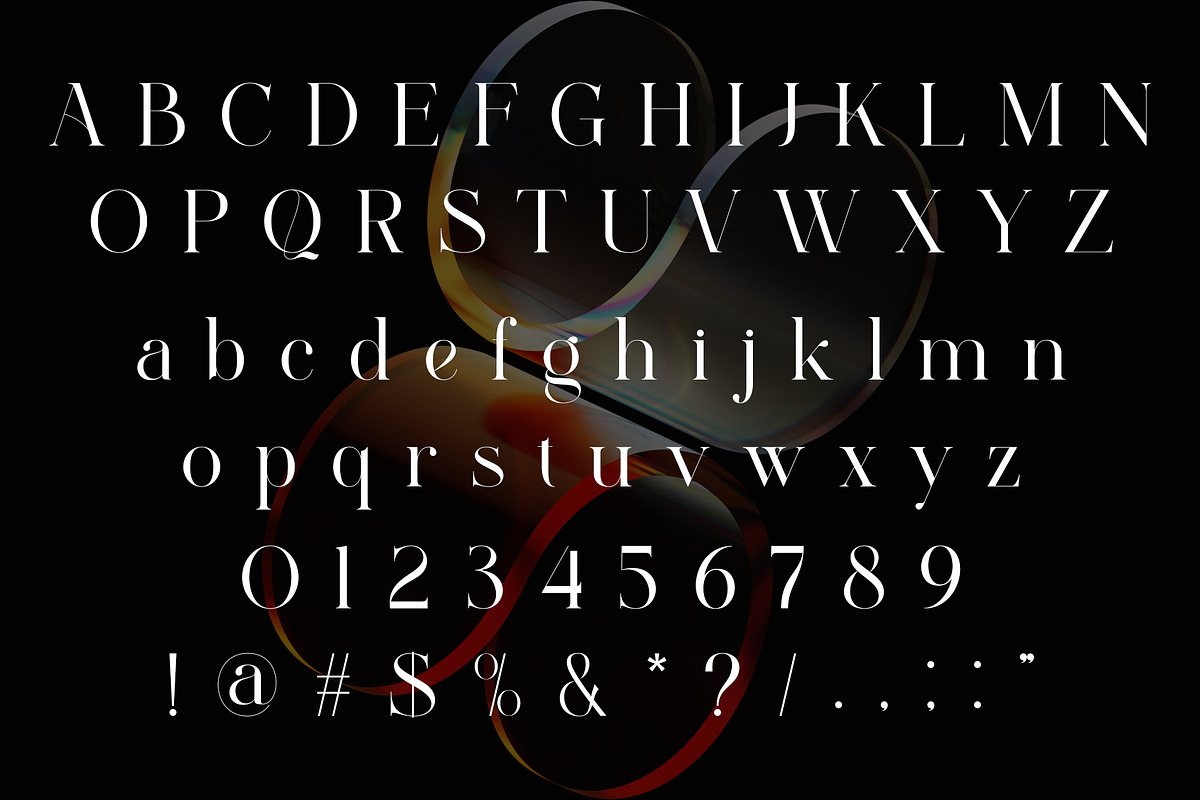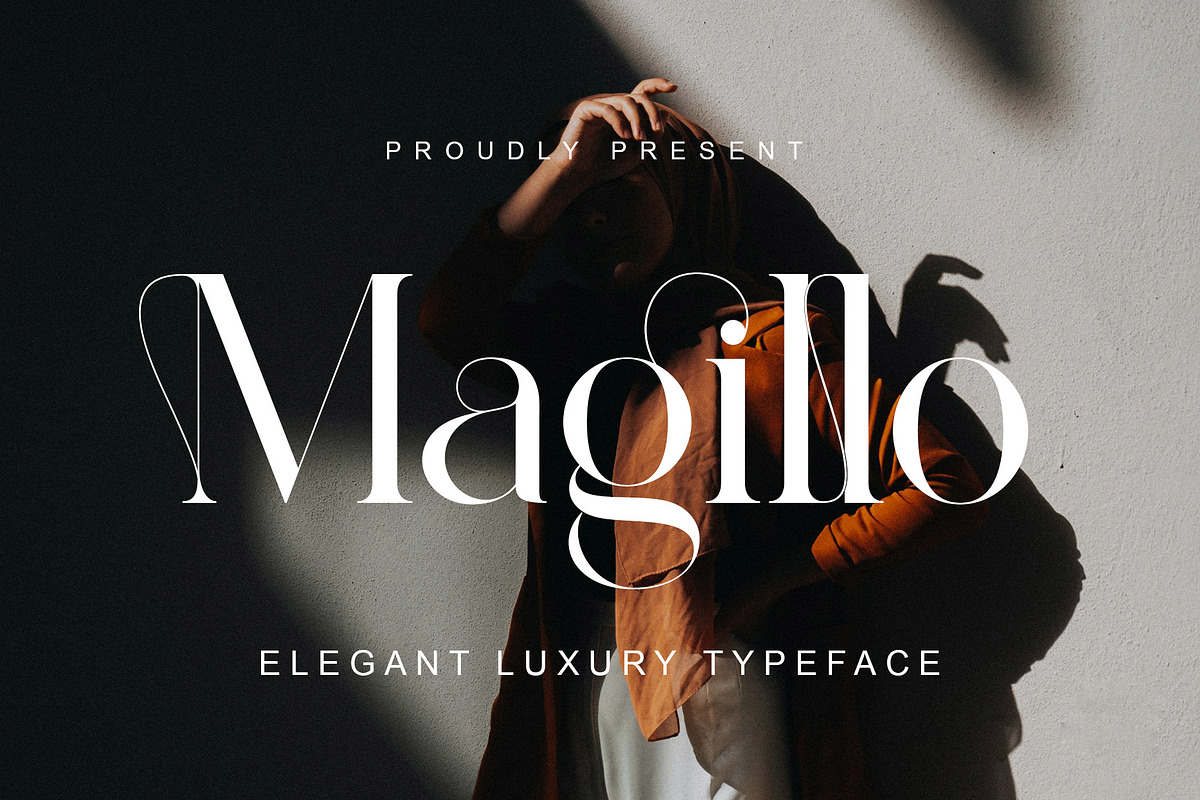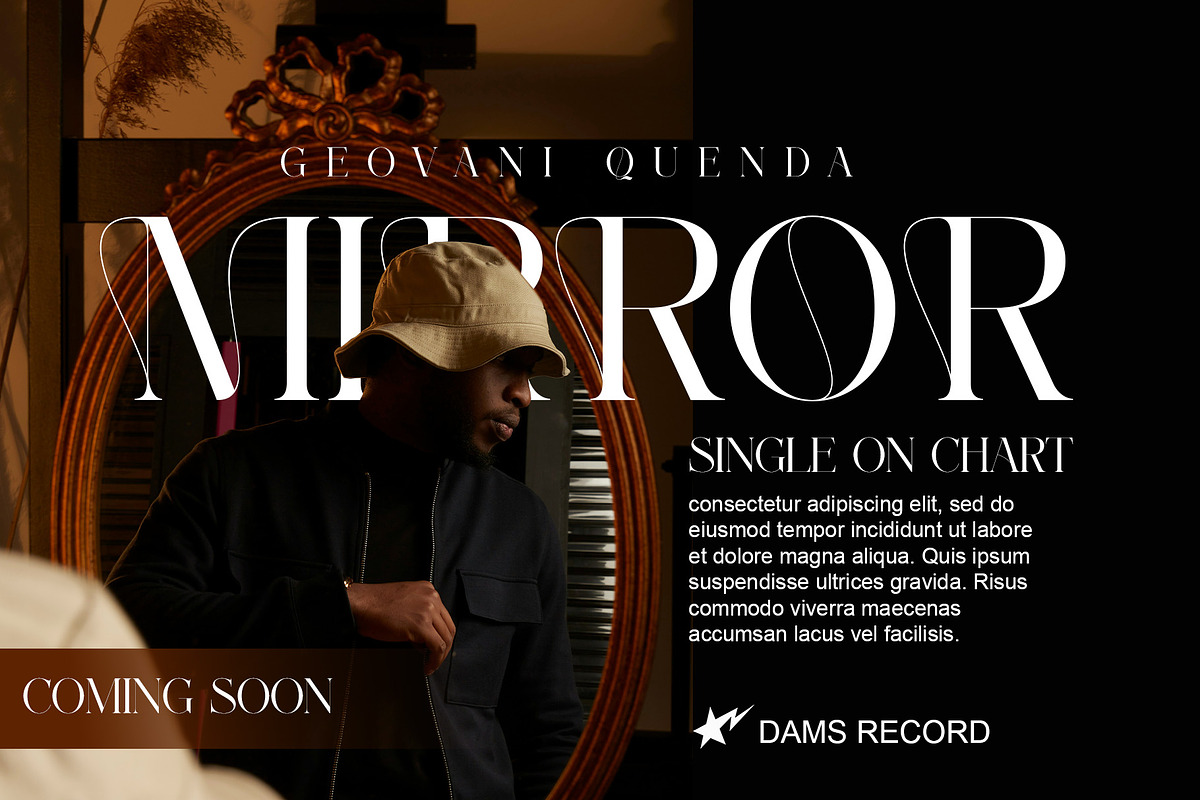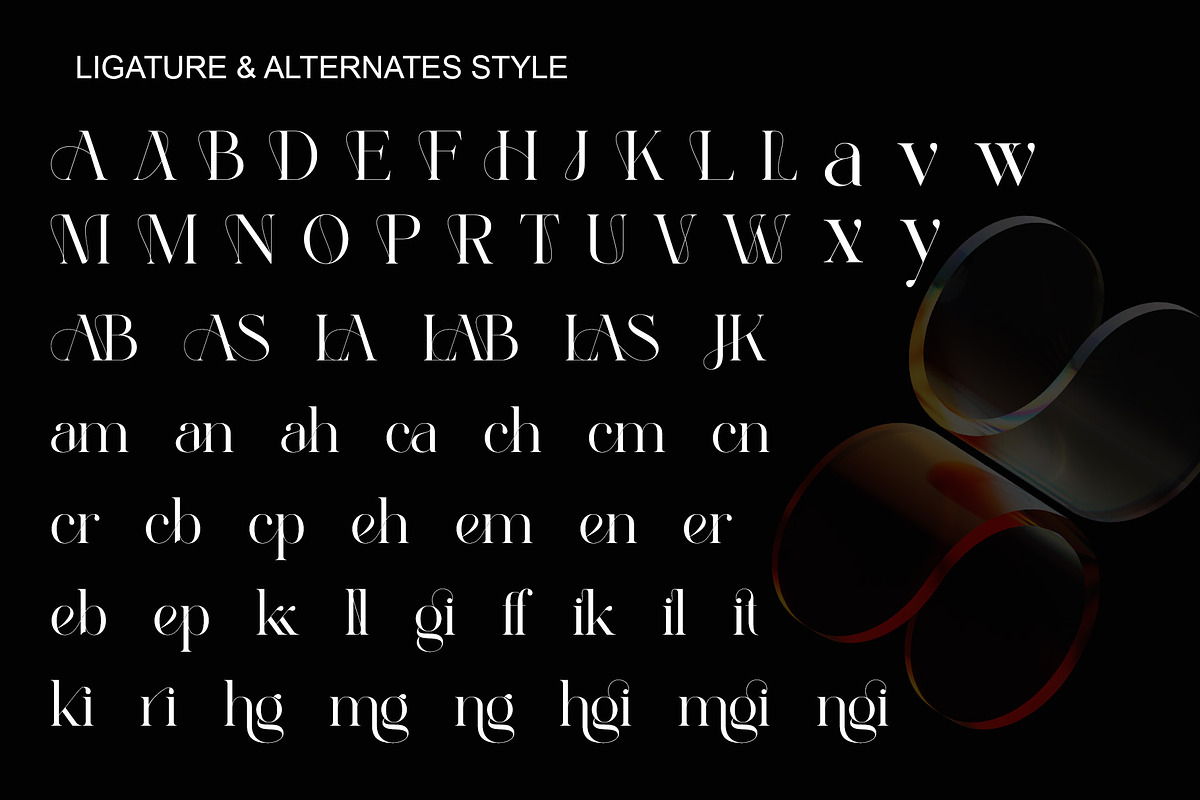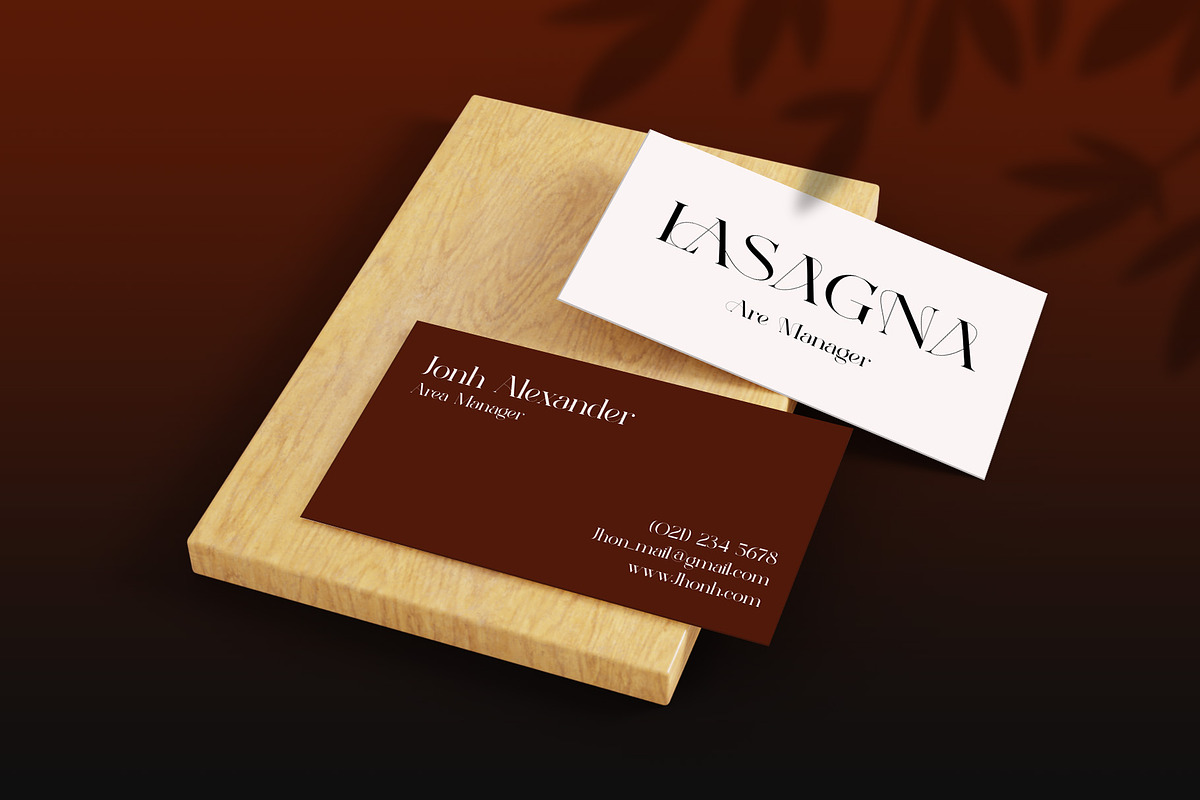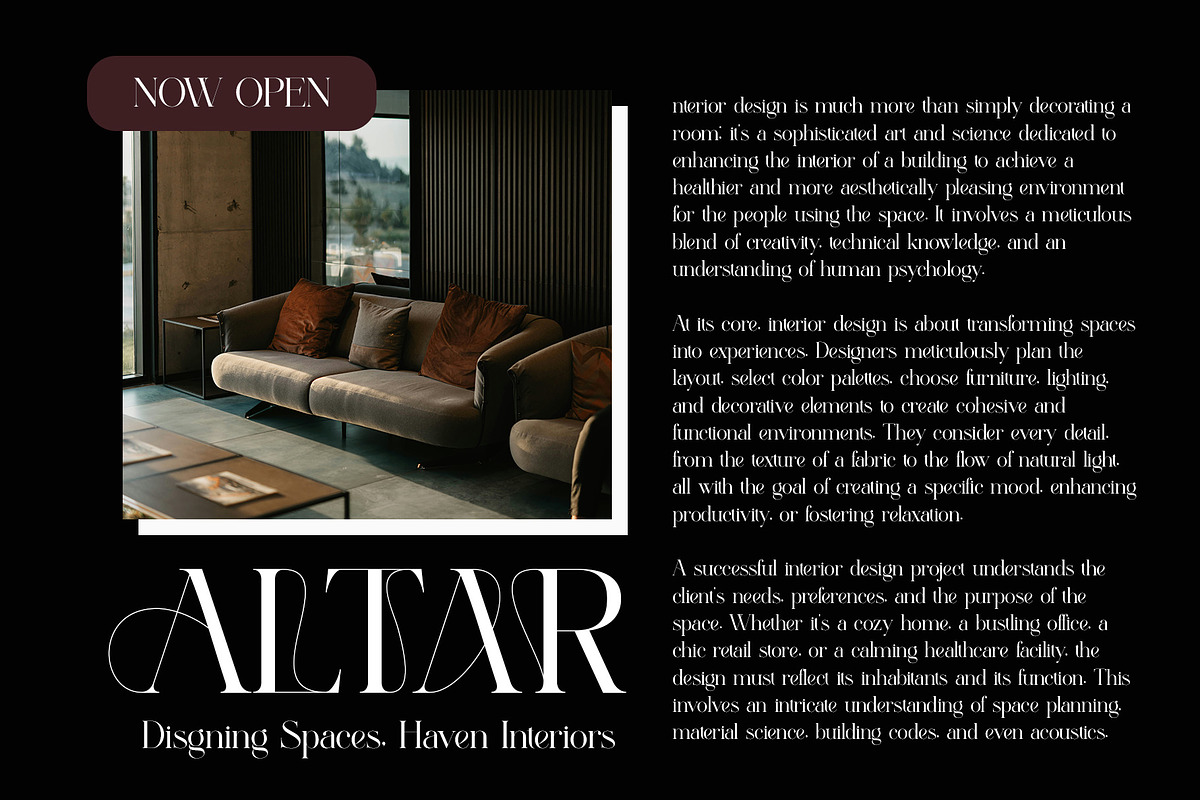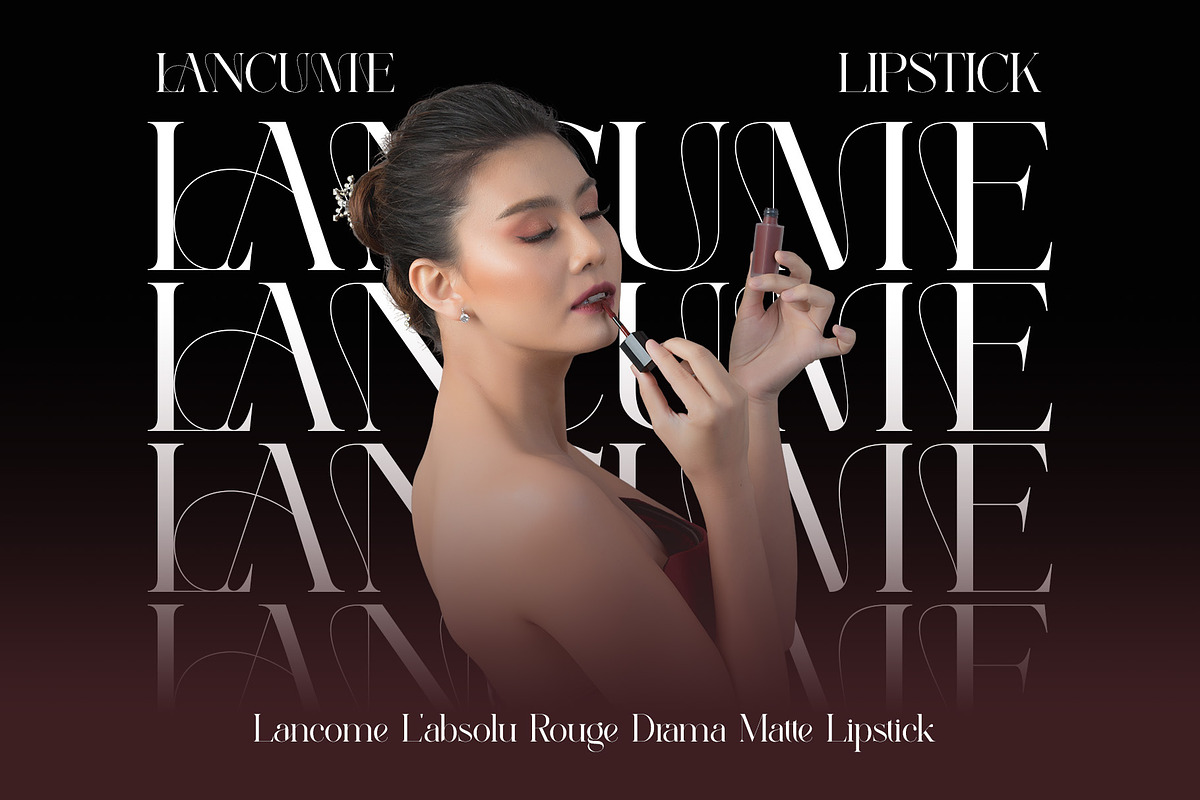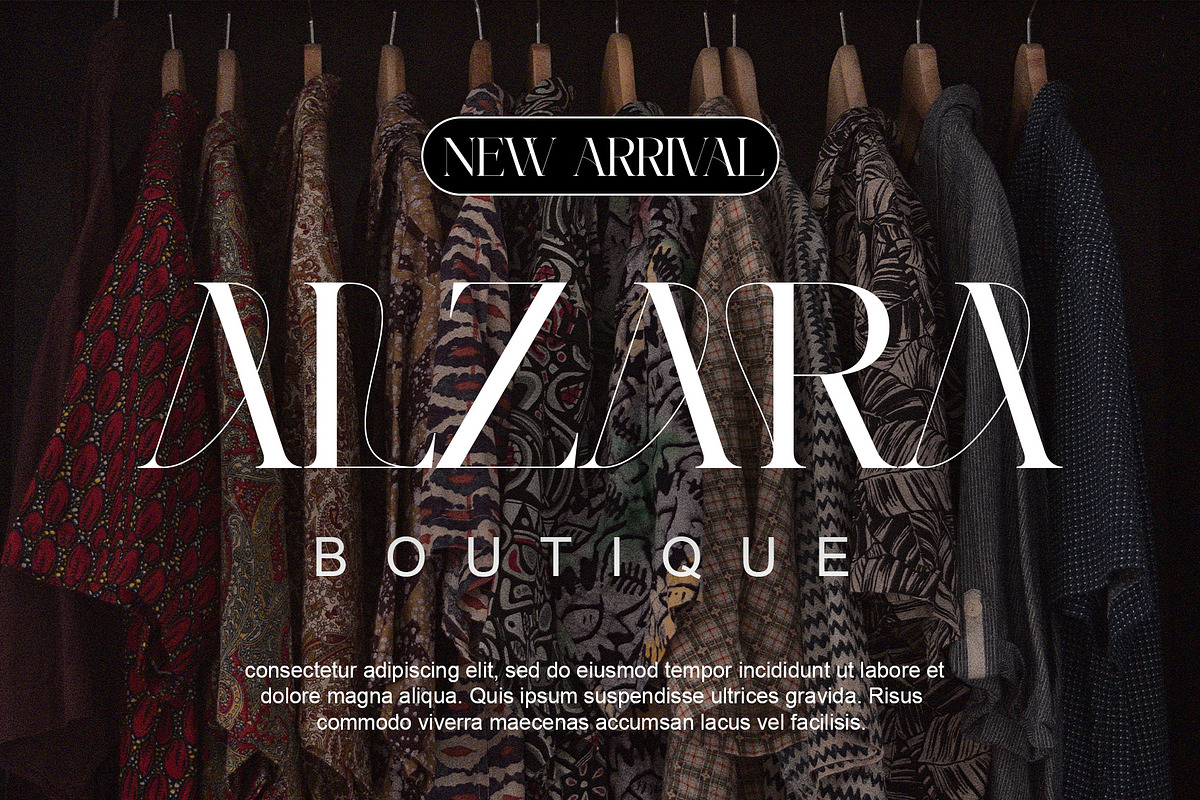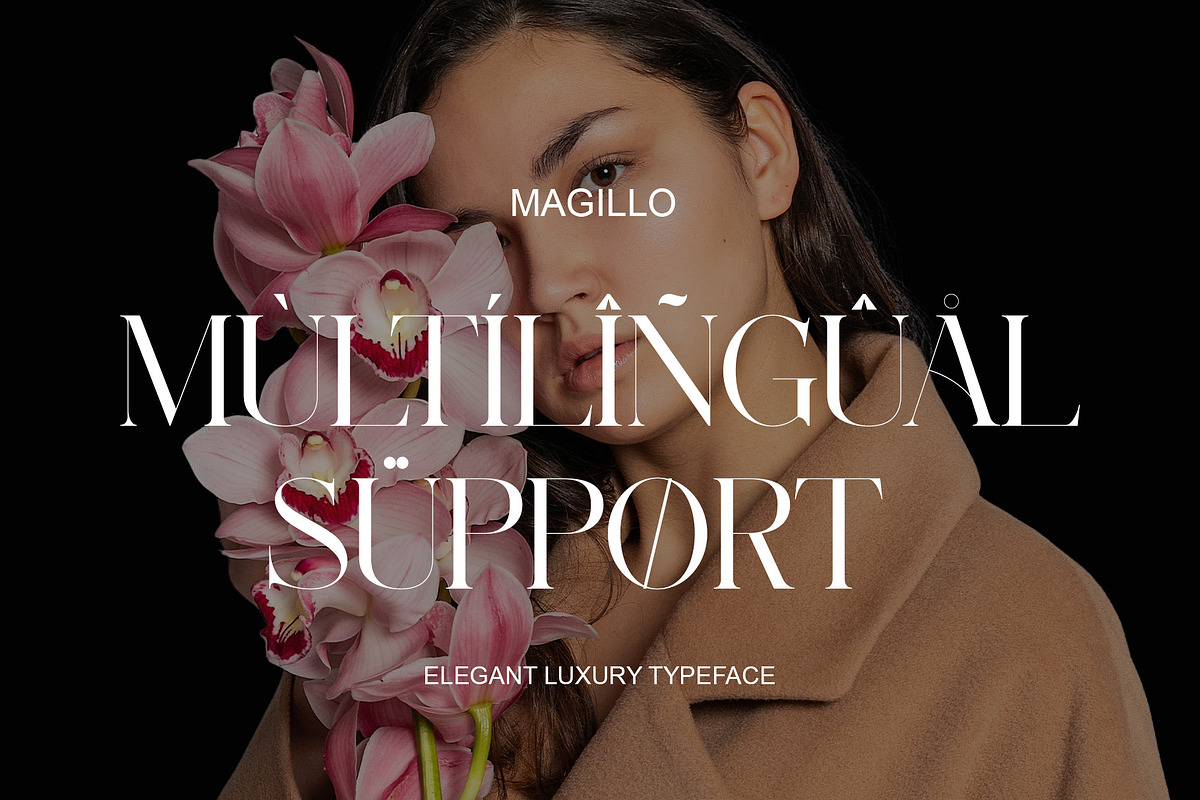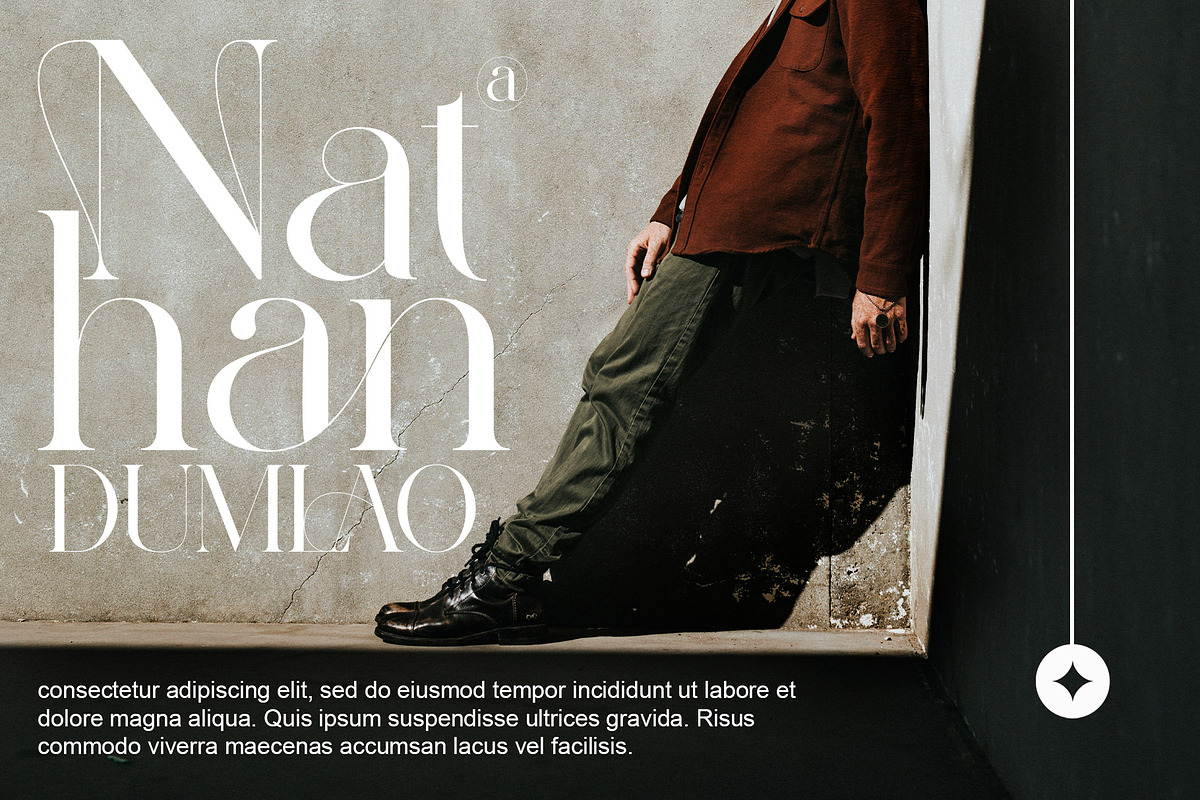
Magillo Elegant Ligature Serif
Magillo – Ligature Serif Typeface Magillo is a contemporary serif that blends classic elegance with a modern twist through distinctive ligatures, delivering a seamless, artistic, and refined typographic experience. Each curve has been meticulously designed to highlight its unique character, identity, and visual aesthetics.
Characterful Serifs Showcases serif strokes with striking contrast between thick and thin lines, paired with subtle soft accents, resulting in a luxurious and stylish feel—perfect for headlines, logos, and captivating branding.
Functional & Decorative Ligatures Includes standard ligatures like fi and fj to prevent awkward letter collisions, along with custom decorative ligatures that add visual flair and uniqueness.
OpenType Alternatives With full OpenType support, users can access alternate glyph shapes, including contextual and historical ligatures—offering design flexibility and creative dynamism.
Multilingual & Glyph-Rich Designed to support multiple languages (including extended Latin and Indonesian), as well as symbols and numerals, providing a comprehensive and culturally versatile typographic palette.
Use Cases
Logos & Headlines: Use custom ligatures for brand names to create a distinctive identity.
Editorials & Posters: Employ alternate glyphs to evoke different moods or styles in various sections.
Wedding Invitations & Premium Packaging: Luxurious serifs and ligatures add an elegant, personalized touch.
Magillo is the perfect choice for designers who want a serif typeface that merges classic refinement with modern charm and unique ligatures—harmonizing aesthetics, functionality, and character in a single font.